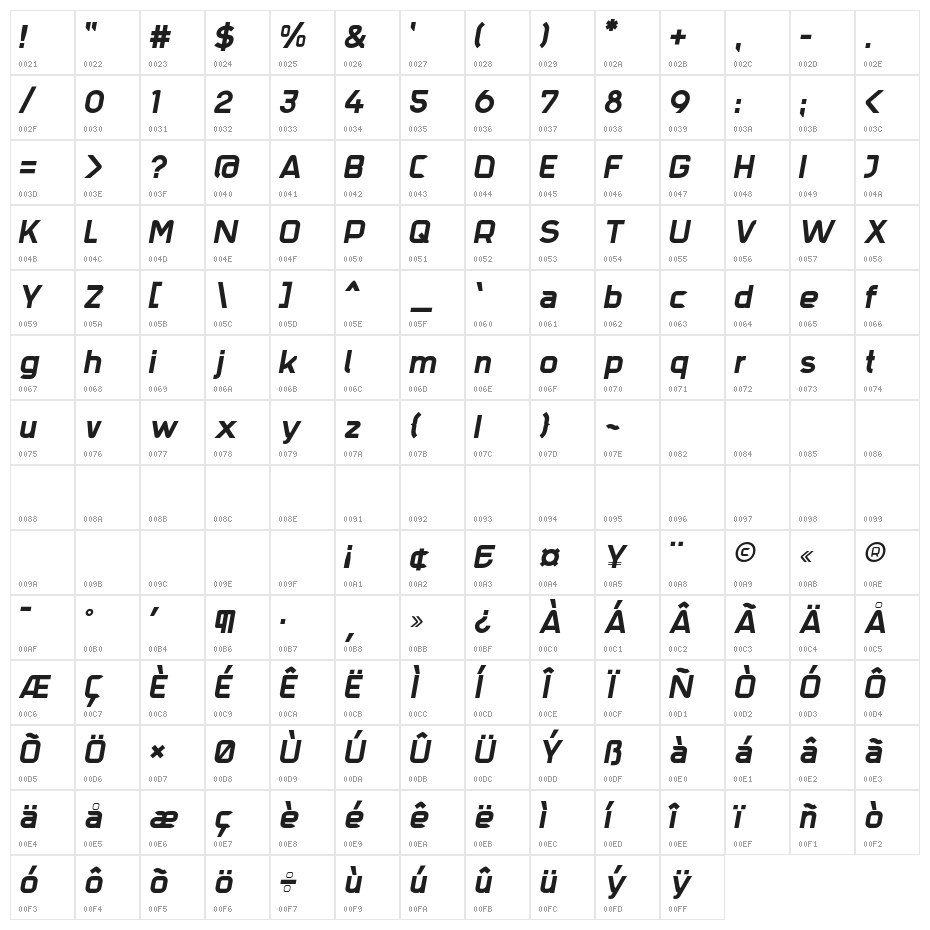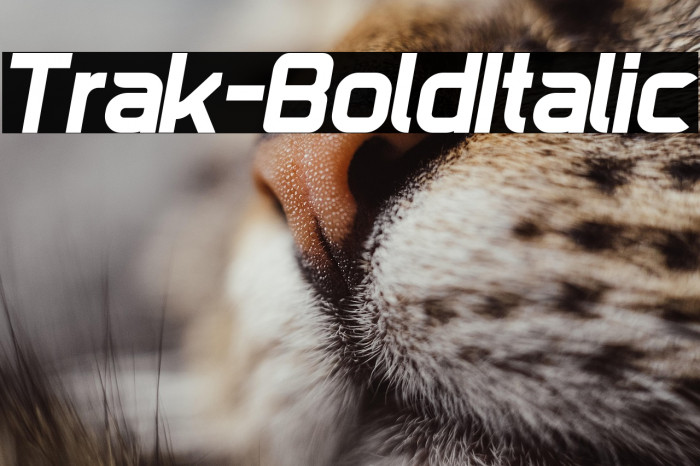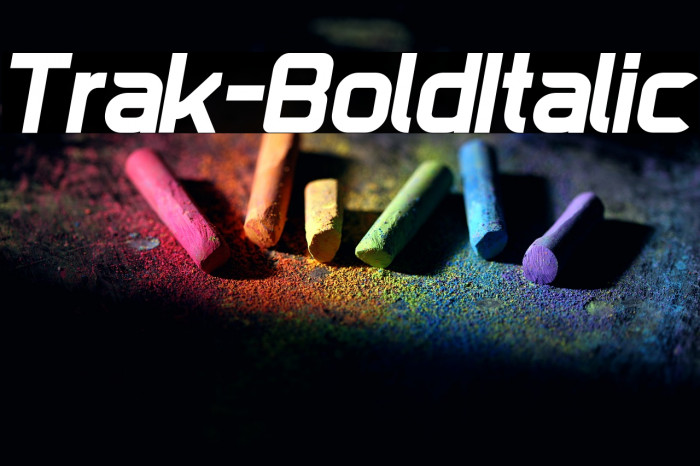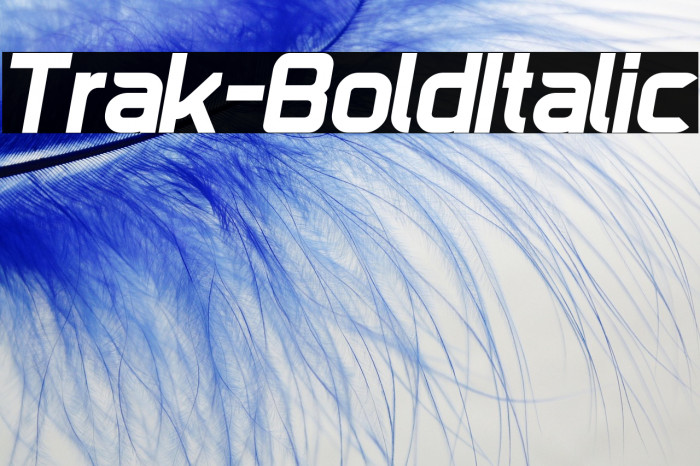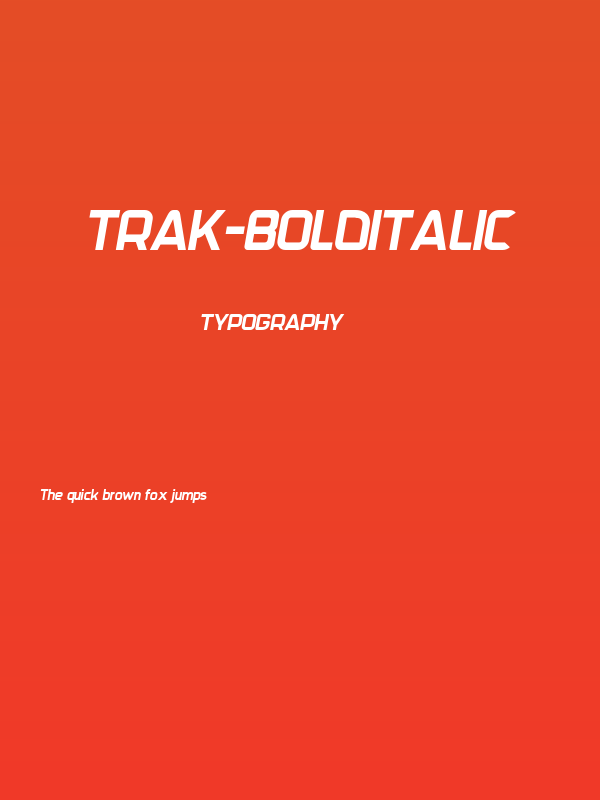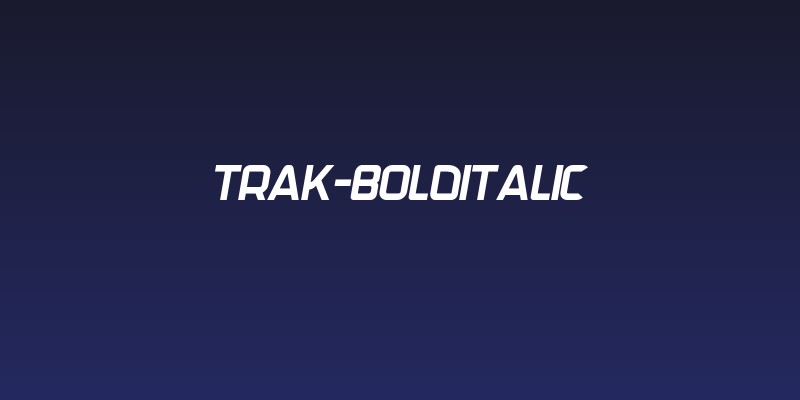
Trak-BoldItalic Font
Trak-BoldItalic Description
This typeface presents a bold and italicized style with a modern and dynamic appearance. The characters are slightly slanted, giving a sense of movement and speed. The strokes are thick and consistent, contributing to a strong visual impact. The uppercase and lowercase letters maintain a uniform width, ensuring readability and balance. The numerals and special characters are designed to match the overall aesthetic, with clear and distinct shapes. This font is versatile, suitable for various design applications where a bold statement is needed.
| Proposed Projects | Ideal for branding, sports team logos, dynamic posters, and modern web design. |